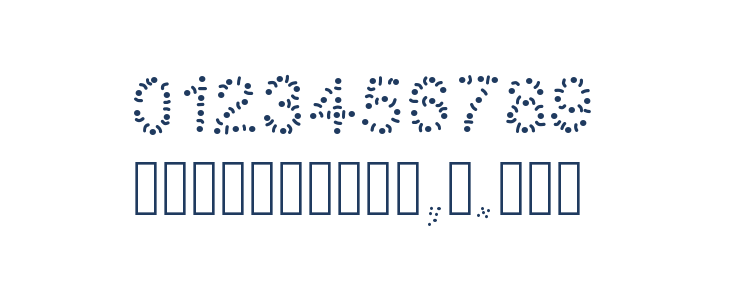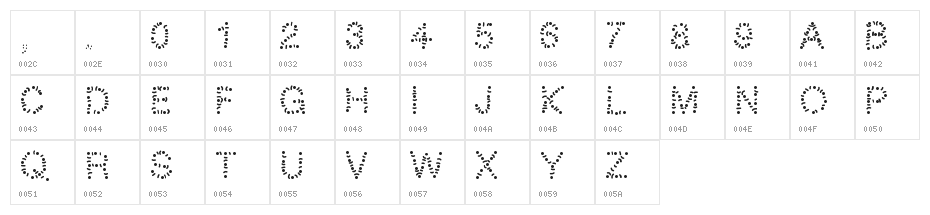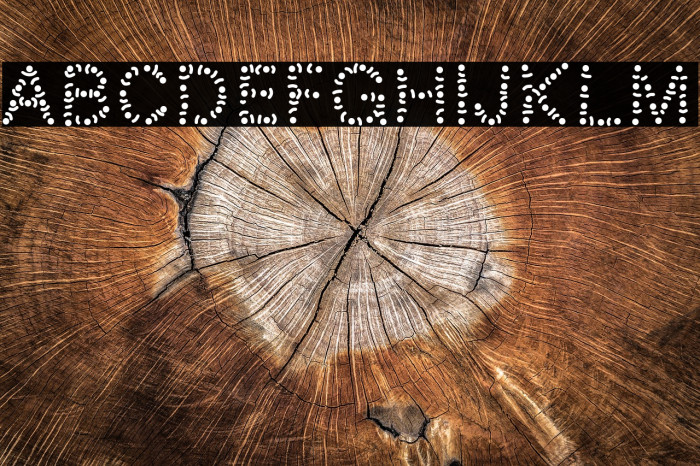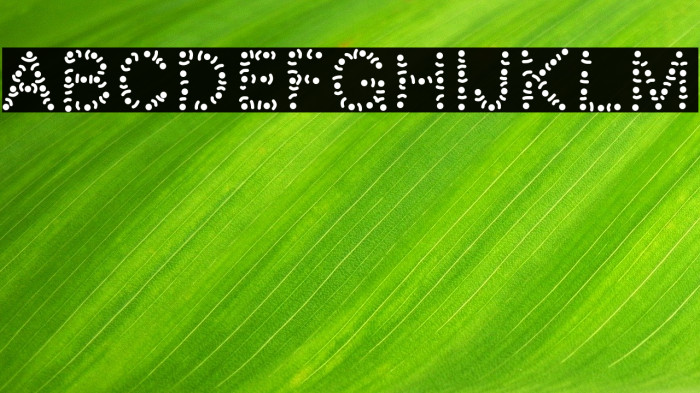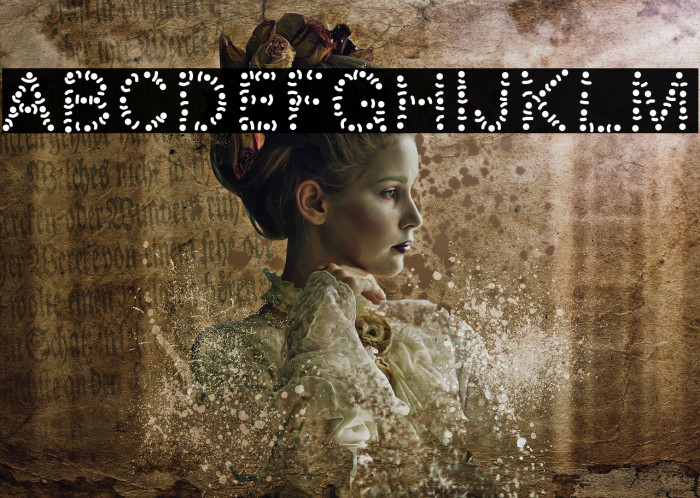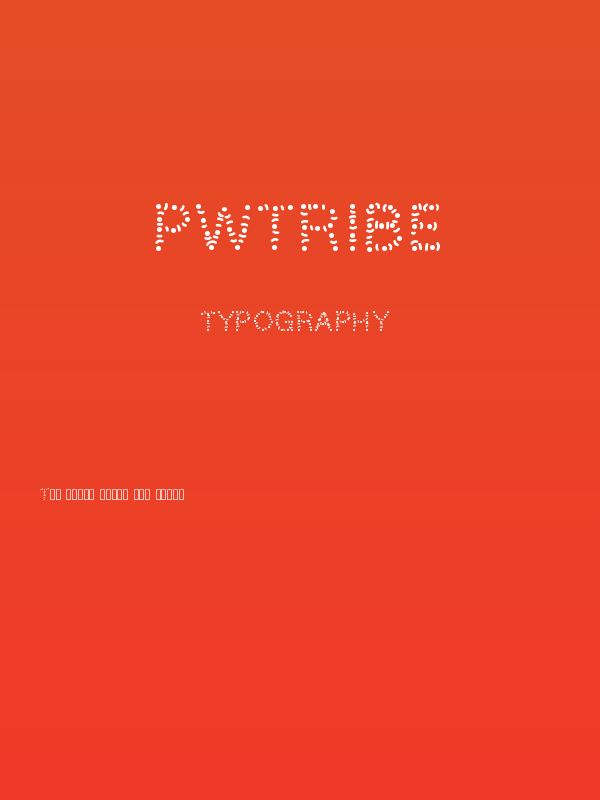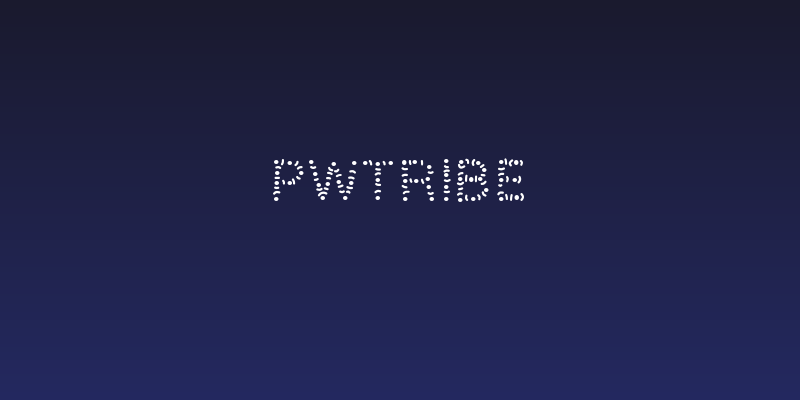
PWTribe Font
PWTribe Description
This font features a unique design where each character is composed of small, evenly spaced dots, creating a dotted pattern that forms the shape of the letters and numbers. The uppercase letters are clearly defined with a playful yet structured appearance, while the numbers maintain a consistent style. The special characters follow the same dotted pattern, ensuring uniformity across the font. This design gives the font a modern and decorative feel, suitable for creative and artistic projects. The spacing between the dots is consistent, providing a cohesive look across all characters.
Proposed ProjectsIdeal for creative projects like posters, invitations, and digital art where a playful and modern aesthetic is desired.